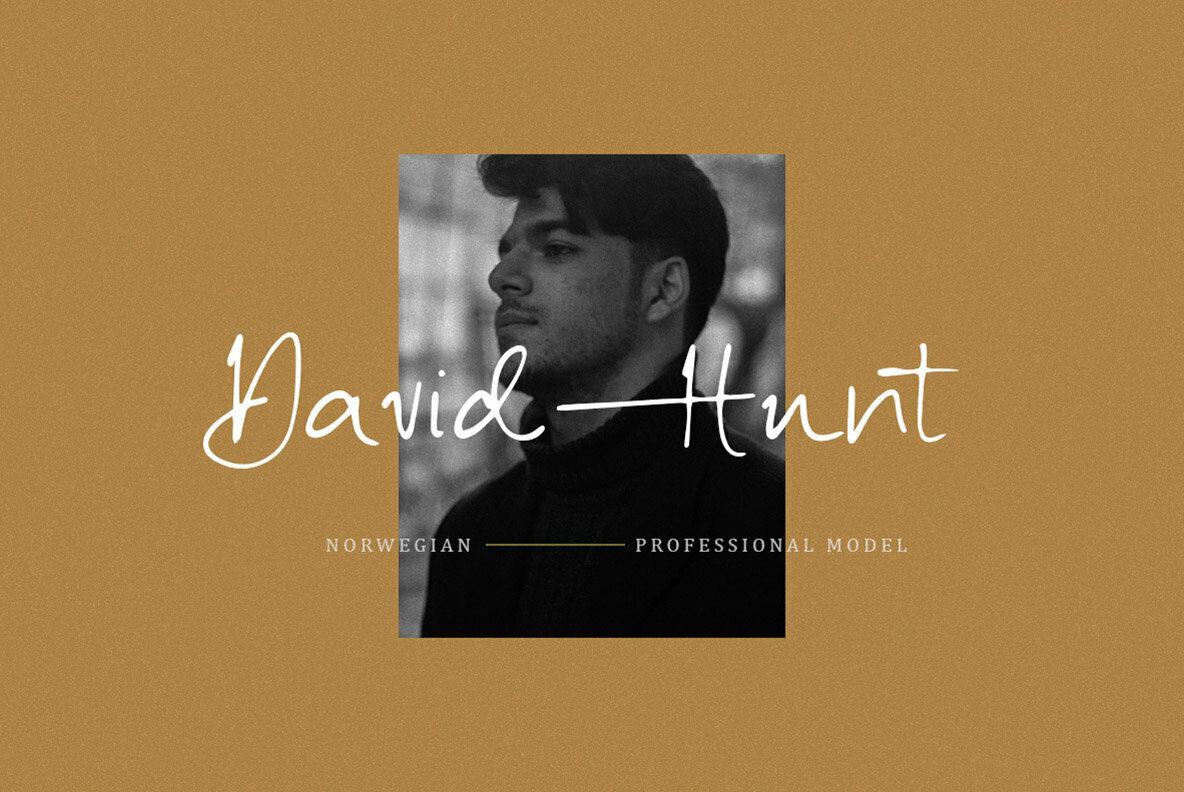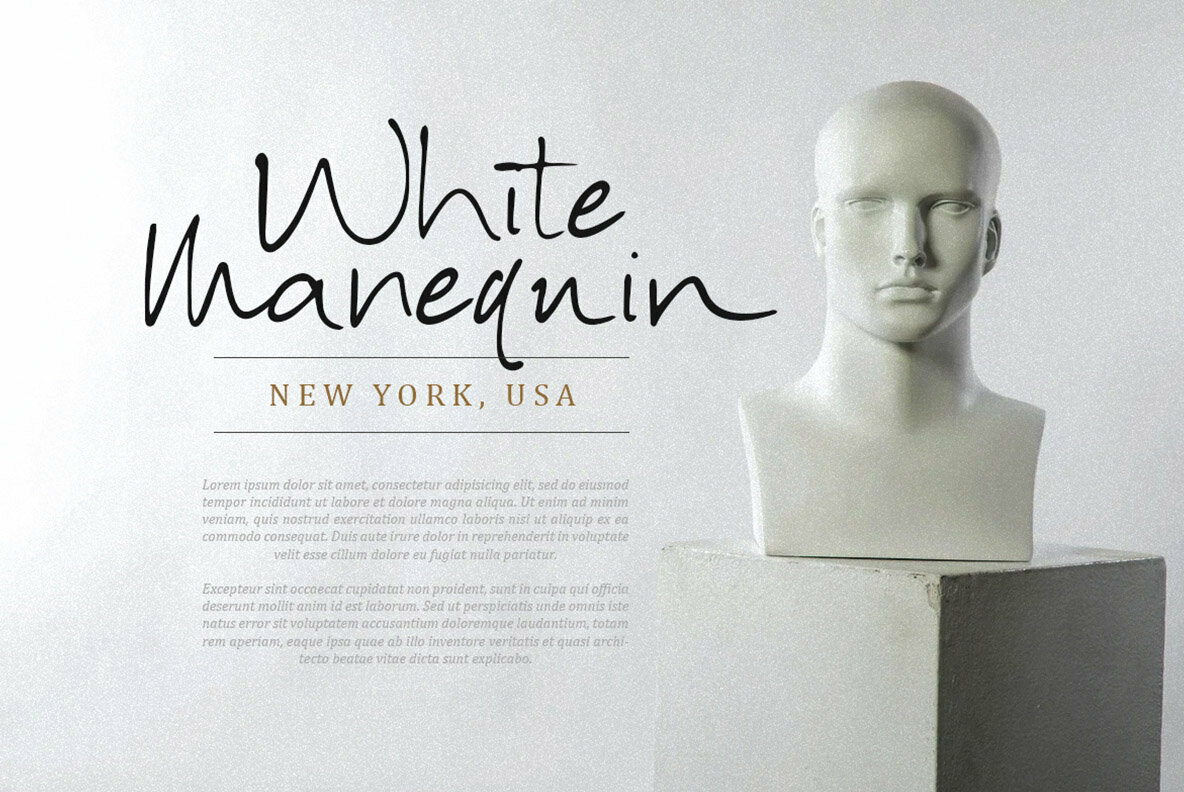
Alessia Harvey Font
Alessia Harvey Regular
Alessia Harvey captures the essence of sophisticated handwriting, offering a natural signature style that enhances numerous projects. Ideal for logos, invitations, labels, and more, this font brings an authentic touch to formal and creative designs. For optimal use, we recommend programs with OpenType and Glyphs panel support, such as Adobe applications and Corel Draw, to fully appreciate Alessia Harvey's complete range of features.Alessia Harvey: Elegant Handwriting with a Signature Flair
Essential Features